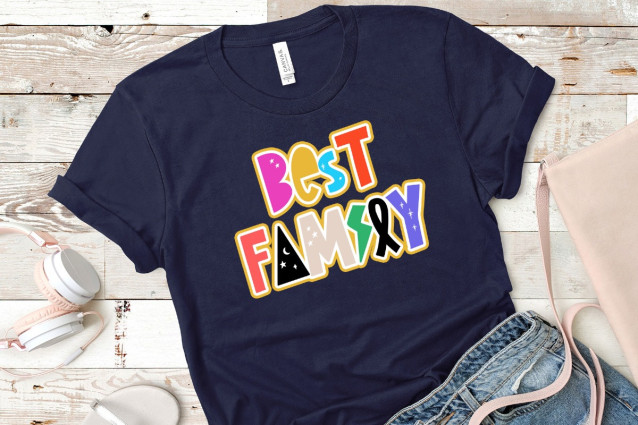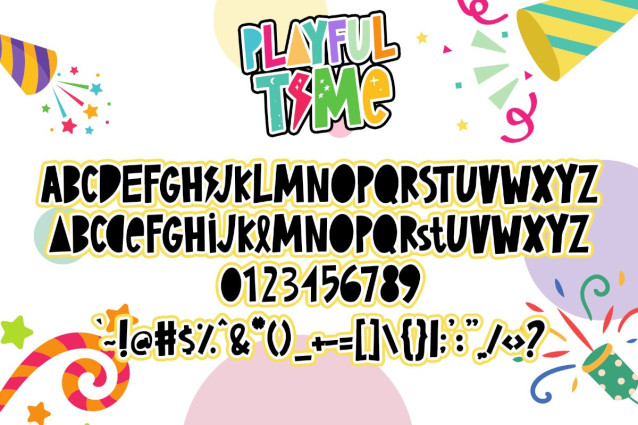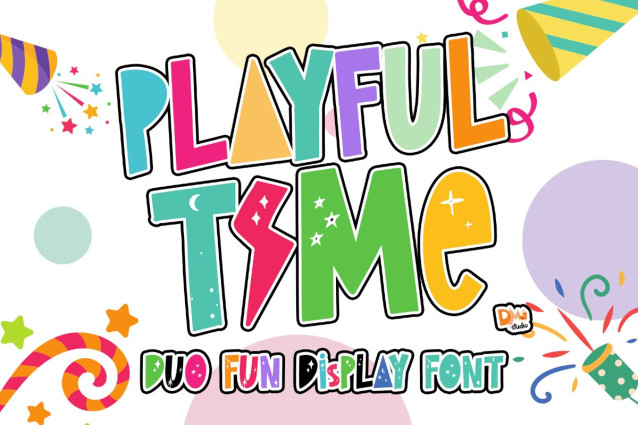
Playful Time Font
Playful Time Font is a delightful and whimsical typeface designed to infuse your projects with a sense of joy and playfulness. Crafted with a playful spirit, this font is versatile and perfect for a variety of creative applications, from children’s books to social media graphics.